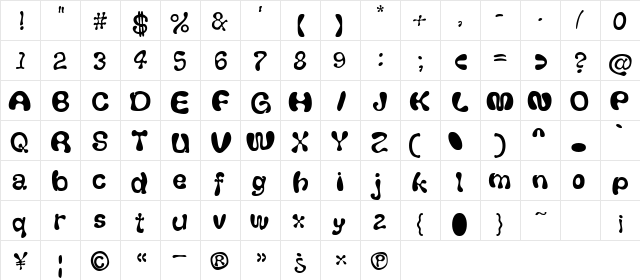
Thickhead Regular
Design Context for Thickhead Typeface
Thickhead is a composed and adaptable typeface that performs quietly and consistently across a wide range of design contexts.